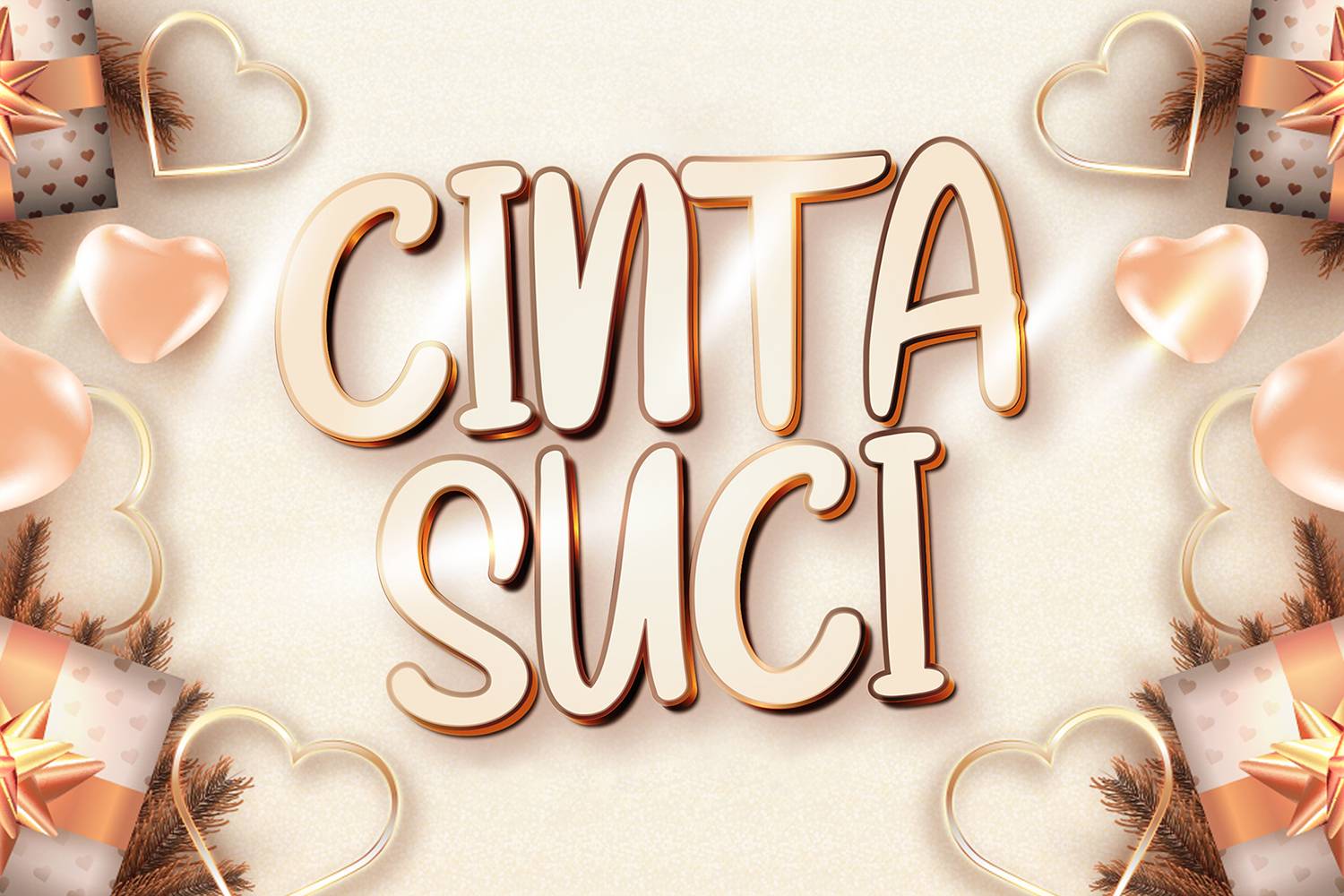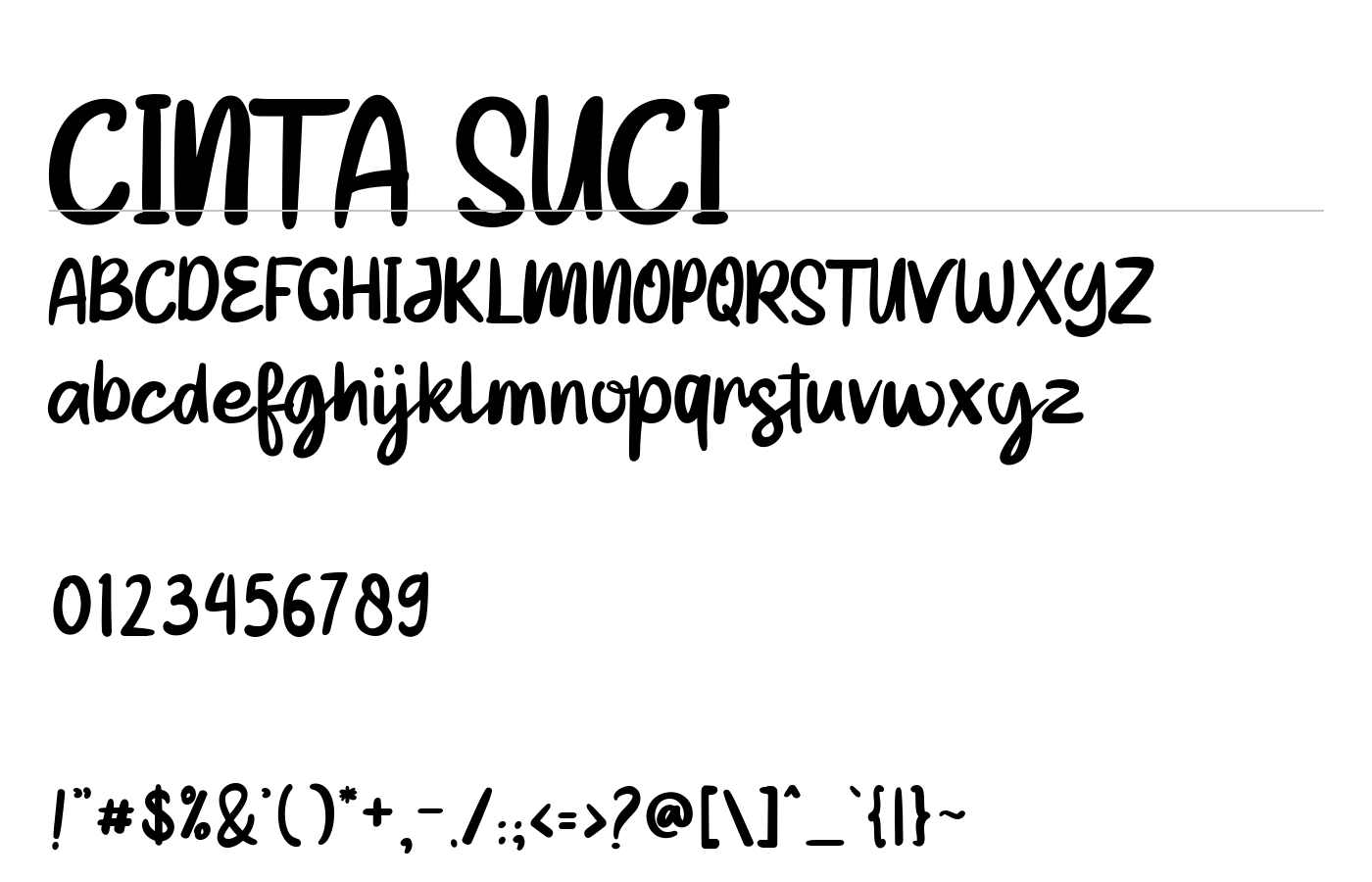
Cinta Suci is a playful and casual handwritten sans serif font with a friendly, approachable vibe. Its rounded, slightly irregular letterforms and uniform medium weight give it a warm and lively personality, making it ideal for informal designs, children’s materials, or creative branding. This font works well in headlines, logos, and packaging where a personal, handcrafted feel is desired.
Cinta Suci Font
About Cinta Suci Font